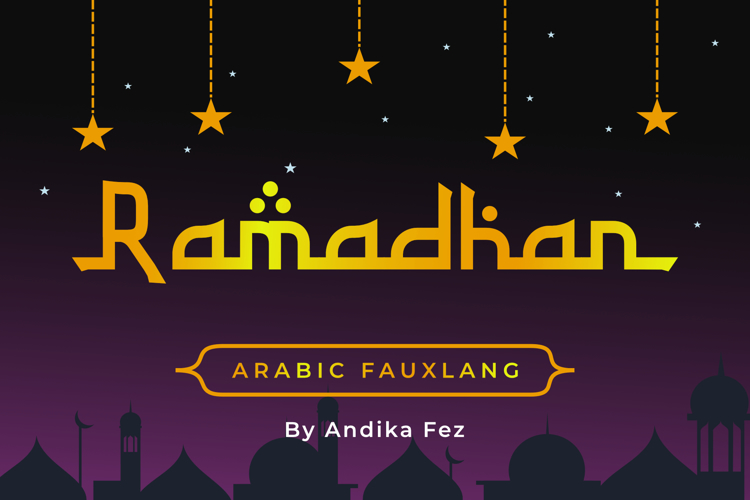
RAMADHAN FEST Font
Ramadhan or Eid Adha arabic fauxlang font Download this font, just click on the purchase download button as a form of support, guys.